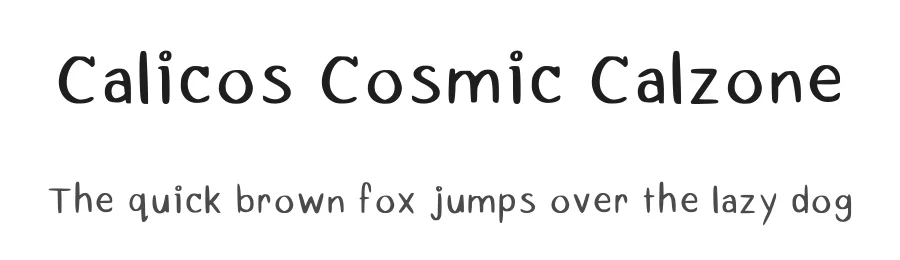
About Happy Easter Font
Happy Easter is a simple and cute display font. Whimsical and a bit quirky, this font will brighten up each of your designs. Add it confidently to your projects, and you will love the results.
Happy Easter Specifications
| Designer | Erik studio |
Happy Easter Font is a decorative font that shines as a display or heading face. Pair it with a clean sans-serif or serif font for body text β the contrast creates a clear hierarchy while the two styles stay balanced and easy to read.
Happy Easter Font
by Erik Studio